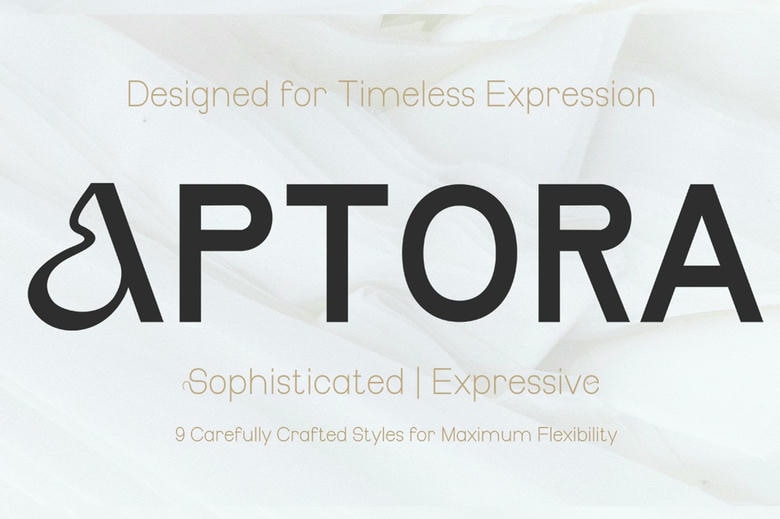
Aptora Font
Aptora is a modern display typeface crafted for timeless expression. Featuring clean, elegant lines and exceptional versatility, Aptora comes in 9 carefully designed weights — from Thin to Black — offering maximum flexibility for a wide range of creative needs.
Perfect for branding, editorial layouts, posters, digital applications, and projects that demand a sophisticated and expressive touch, Aptora delivers a refined look without sacrificing personality.
Aptora Display Font Family